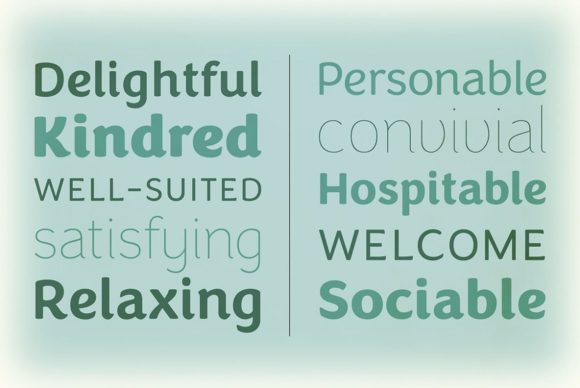
Introducing the Congenial Family Font, a sans-serif masterpiece created by the talented Laura Worthington. Designed as a subtle and highly readable companion to her decorative display faces, Congenial is the perfect addition to any design project.
With its hand-drawn elements and captivating details, this 11-face font family combines elegance with legibility. The heavier weights of Congenial showcase unique features, such as the swelling diagonal stroke of the capital X and the flared terminals of the K, L, Q, and Z. These artistic touches add a touch of sophistication to your designs.
At lighter weights, Congenial takes on a monoline appearance, while still maintaining its humanist charm. The graceful curves of the k, e, and g exemplify the attention to detail that sets this font apart. Its generous x-height and well-differentiated characters ensure readability, making it a friendly and inviting choice for any project.
Unlike sharp and modernist fonts, Congenial exudes warmth and approachability. It seamlessly blends into your designs, allowing your message to take center stage. It's like having the perfect host who effortlessly creates an atmosphere of comfort and ease.
Whether you're designing a website, creating marketing materials, or crafting a personal project, Congenial is the ideal font to convey your message with style and clarity. Its versatility makes it suitable for a wide range of applications, making it a must-have for designers and creatives alike.